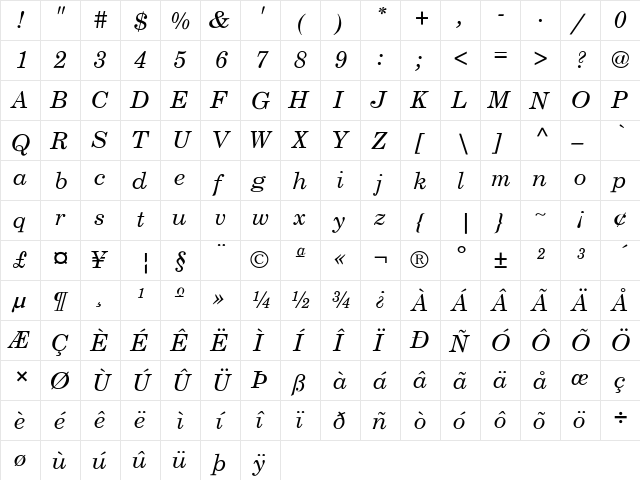
NewCenturySchlbk-Normal-Italic Regular Font Preview
NewCenturySchlbk-Normal-Italic Regular
NewCenturySchlbk-Normal-Italic Regular Font Details
Design Context for NewCenturySchlbk-Normal-Italic Typeface
NewCenturySchlbk-Normal-Italic takes a measured approach to typography — its balanced proportions and neutral character make it a reliable workhorse for both digital and print work. The dynamic lean of this cut emphasises speed and emphasis in any layout.
Pro Tip: Try NewCenturySchlbk-Normal-Italic for annotation and caption copy alongside an upright companion — the contrast in angle creates a dynamic but ordered typographic system.